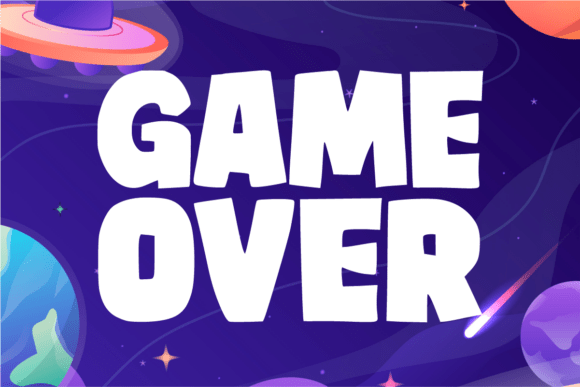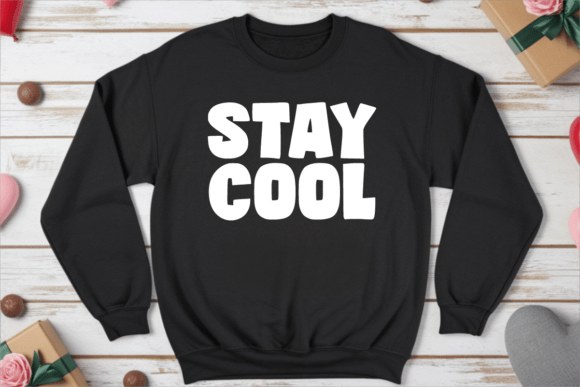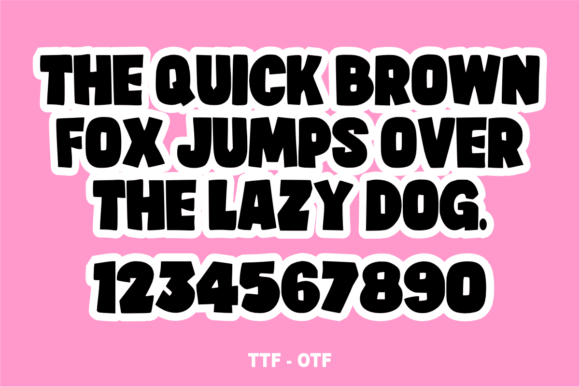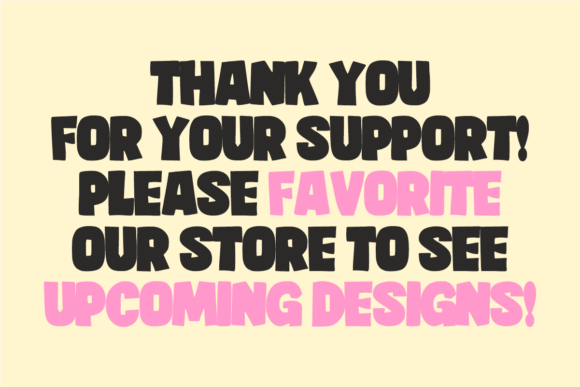
Blast Off with Bold Space Font: The Ultimate Choice for Fun and Futuristic Designs
Are you looking for a font that can add a touch of fun and futurism to your designs? Look no further than Bold Space, a super-chunky, rounded, and friendly font that’s perfect for anything kid-friendly, playful, or out of this world. In this article, we’ll explore the features and benefits of Bold Space, and why it’s an excellent choice for designers and crafters looking to create engaging and eye-catching content.
The Features of Bold Space Font
Bold Space is a unique font that boasts oversized, soft shapes that give it a playful yet strong presence. Its chunky design makes it perfect for headlines, titles, and branding, while its rounded edges add a touch of friendliness and approachability. The font’s futuristic feel is perfect for designs that require a sense of adventure and exploration, such as children’s apps, animated videos, and game design.
The Benefits of Using Bold Space Font
So, why choose Bold Space for your designs? Here are just a few benefits of using this amazing font:
- Perfect for kid-friendly designs: Bold Space is a font that’s sure to delight kids and adults alike. Its playful and friendly design makes it an excellent choice for children’s apps, books, and games.
- Futuristic feel: The font’s futuristic design makes it perfect for designs that require a sense of adventure and exploration, such as animated videos, sci-fi movies, and game design.
- Easy to read: Despite its chunky design, Bold Space is surprisingly easy to read, making it perfect for headlines, titles, and short paragraphs of text.
- Versatile: Bold Space can be used for a wide range of designs, from branding and advertising to children’s books and game design.
How to Use Bold Space Font in Your Designs
Using Bold Space in your designs is easy. Here are a few tips to get you started:
- Use it for headlines and titles: Bold Space is perfect for headlines and titles, where its chunky design can really make an impact.
- Pair it with other fonts: Bold Space can be paired with other fonts to create a unique and interesting design. Try pairing it with a sans-serif font for a fun and playful look.
- Experiment with colors: Bold Space looks great in bright, bold colors. Experiment with different colors to find the one that works best for your design.
Design Ideas Using Bold Space Font
- Children’s app design: Use Bold Space to create a fun and engaging design for a children’s app. Its playful and friendly design makes it perfect for kids.
- Animated video titles: Use Bold Space to create eye-catching titles for animated videos. Its futuristic feel makes it perfect for sci-fi and adventure videos.
- Comic book titles: Use Bold Space to create bold and eye-catching titles for comic books. Its chunky design makes it perfect for superhero logos and titles.
- Game design: Use Bold Space to create a fun and engaging design for a game. Its playful and friendly design makes it perfect for kids’ games and puzzles.
| Font Name | Bold Space Font |
| Author | TaralArt |
In conclusion, Bold Space is a unique and versatile font that’s perfect for designers and crafters looking to add a touch of fun and futurism to their designs. Its oversized, soft shapes give it a playful yet strong presence, making it an excellent choice for kid-friendly designs, animated videos, comic titles, game design, and sweet, eye-catching branding. With its ease of use and versatility, Bold Space is sure to become a favorite font in your design arsenal. So why not give it a try and blast off with Bold Space?
Whether you’re a designer, crafter, or simply someone who loves to create, Bold Space is a font that’s sure to inspire and delight. Its friendly and approachable design makes it perfect for a wide range of designs, from children’s books to game design. So go ahead, get creative, and see what amazing designs you can create with Bold Space!